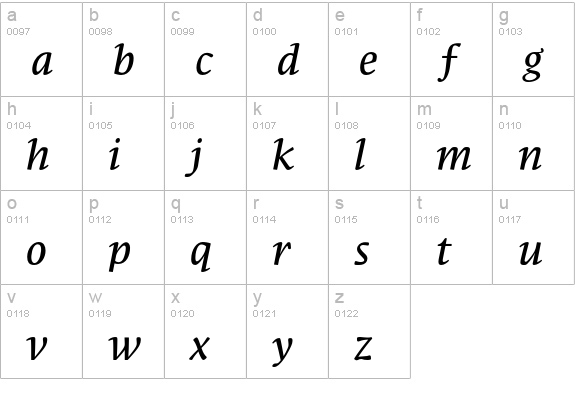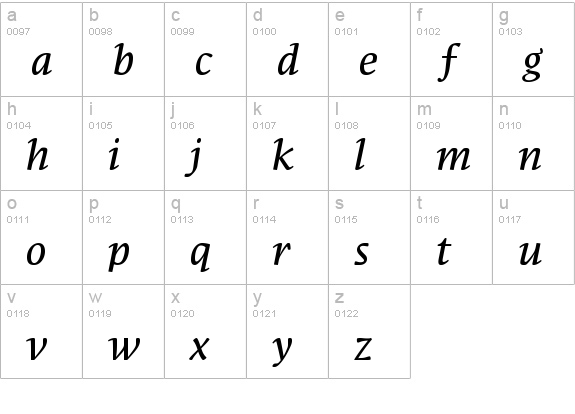
Parable-RegularItalic font is a beautifully designed typeface that effortlessly combines elegance and modernity. With its sleek and slanted letterforms, this font exudes a sense of sophistication and creativity, making it perfect for adding a touch of stylish flair to any project. The italicized style of Parable-RegularItalic font adds a dynamic and artistic touch to any text, making it ideal for use in branding, advertising, and editorial design. Whether you're designing a logo, creating a magazine layout, or crafting a website, this font will make a lasting impression. What sets Parable-RegularItalic font apart is not only its stunning aesthetics but also its accessibility. This font is freely available to download at FontsMarket.com, allowing designers and enthusiasts alike to use it in their projects without any restrictions. With just a few clicks, you can enhance your designs with the captivating allure of Parable-RegularItalic font. Whether you're a professional designer or a hobbyist, Parable-RegularItalic font offers endless possibilities for creativity. Its versatility and unique style make it suitable for a wide range of applications, from branding and packaging to invitations and signage. The graceful curves and distinct letterforms of this font will add a touch of elegance and sophistication to any design. In addition to its visual appeal, Parable-RegularItalic font also offers excellent legibility, ensuring that your message is conveyed clearly and effectively. The carefully crafted letterforms maintain readability even at smaller sizes, making it an ideal choice for body text as well as headlines. So why wait? Enhance your designs with the captivating beauty of Parable-RegularItalic font. Download it for free at FontsMarket.com and let your creativity soar. Whether you're working on a personal project or a client's commission, this font will undoubtedly elevate your design to new heights. Experience the elegance and versatility of Parable-RegularItalic font today and unlock a world of design possibilities.